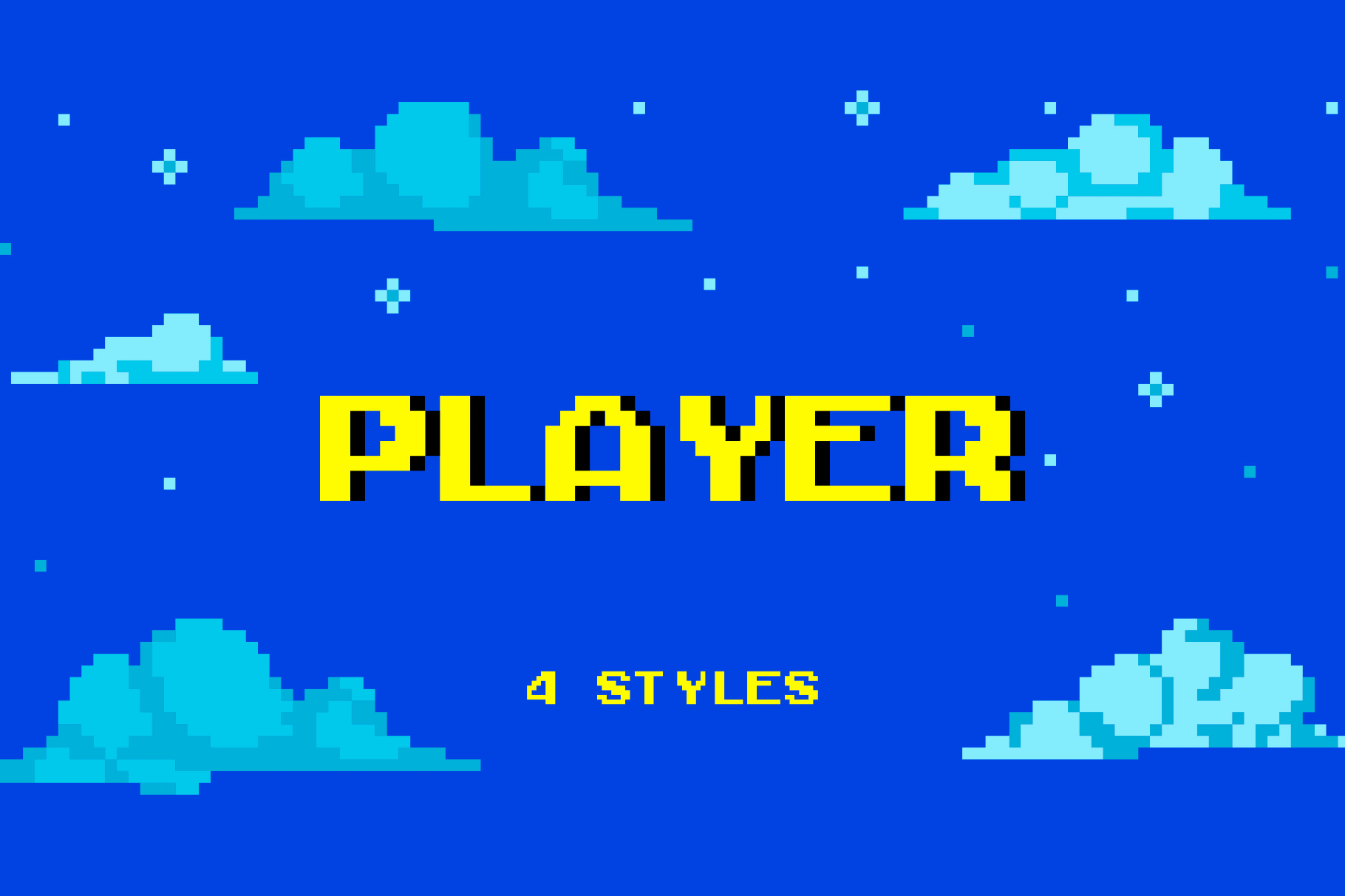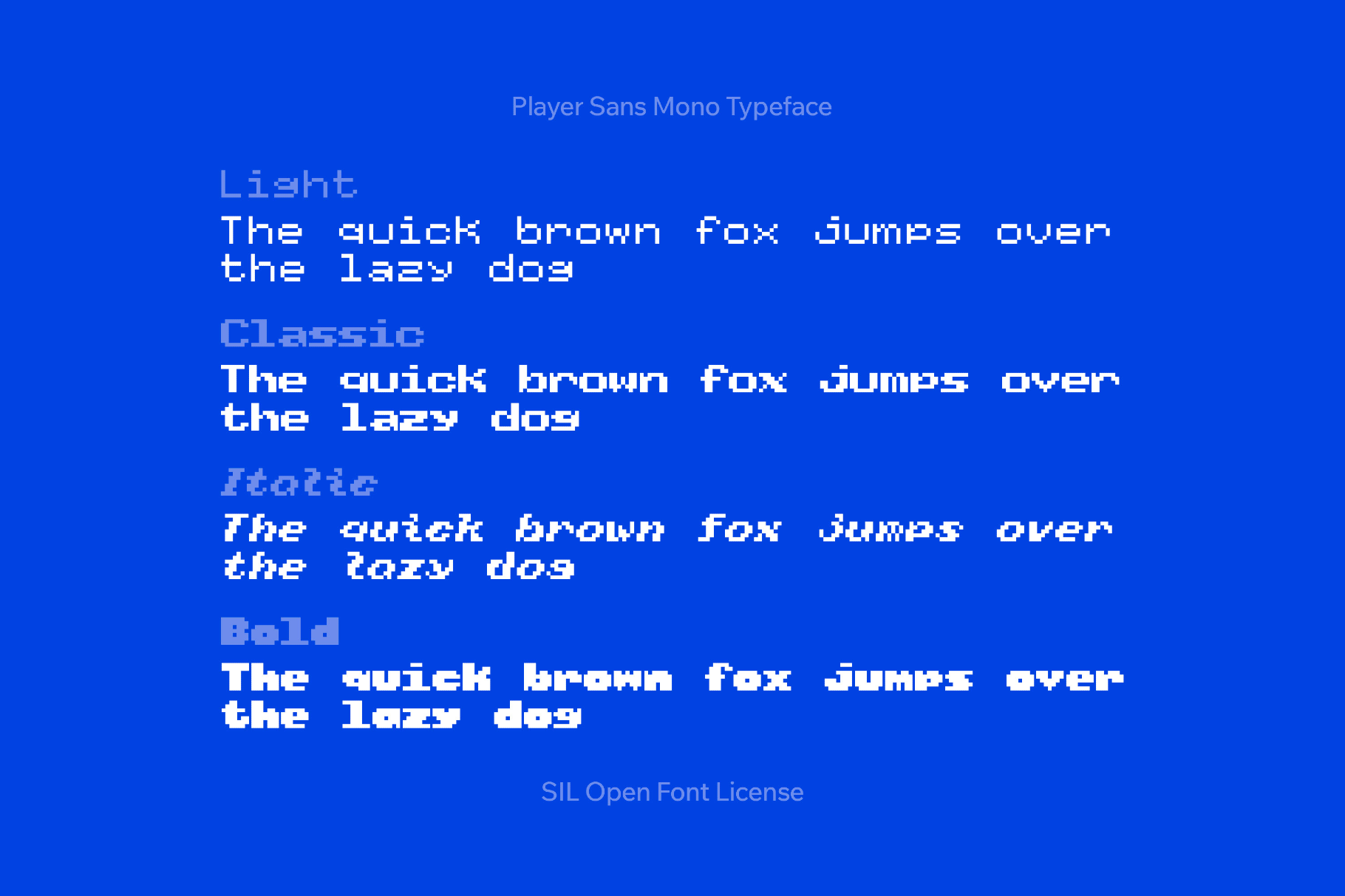
Player Sans Mono Typeface
Player Sans Mono is designed for video game developers and is inspired by 80s–90s console typography and classic Atari-style screens. It is suitable for in-game UI, HUD labels, RPG-style dialogue windows, retro launchers, title screens, pause and options menus, pixel-art overlays, subtitles, devtools, debug consoles, and mock OS interfaces.
- Four styles: Light, Classic, Italic, and Bold.
- Uppercase and lowercase letters, numbers, punctuation, symbols, international characters, and extra symbols.
- Monospaced character sets built on 8×8 and 8×13 grids.
- Multilingual support for Latin-based languages.